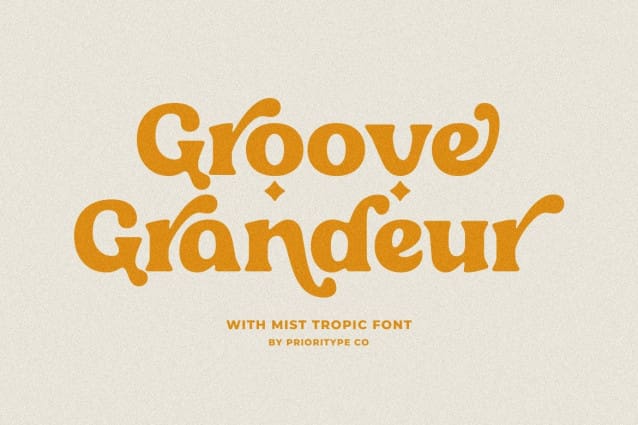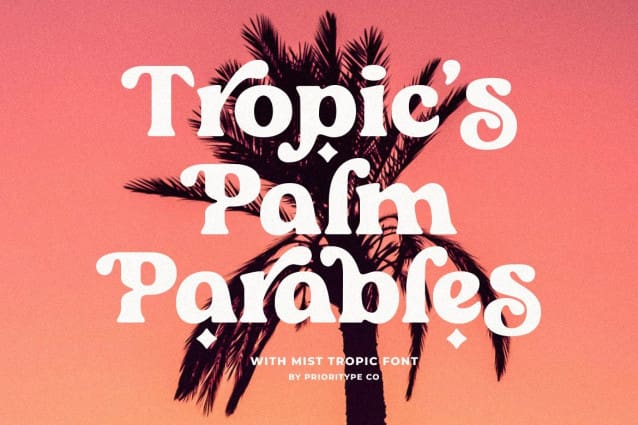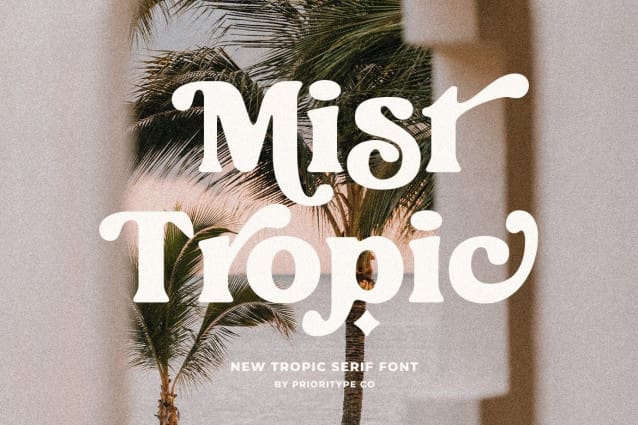
Mist Tropic Font
Mist Tropic Font blends groovy retro vibes with tropical coolness. This serif font elevates branding, logos, and merchandise with a timeless, vintage charm. Dive in, and let “MistTropic” transform your designs.